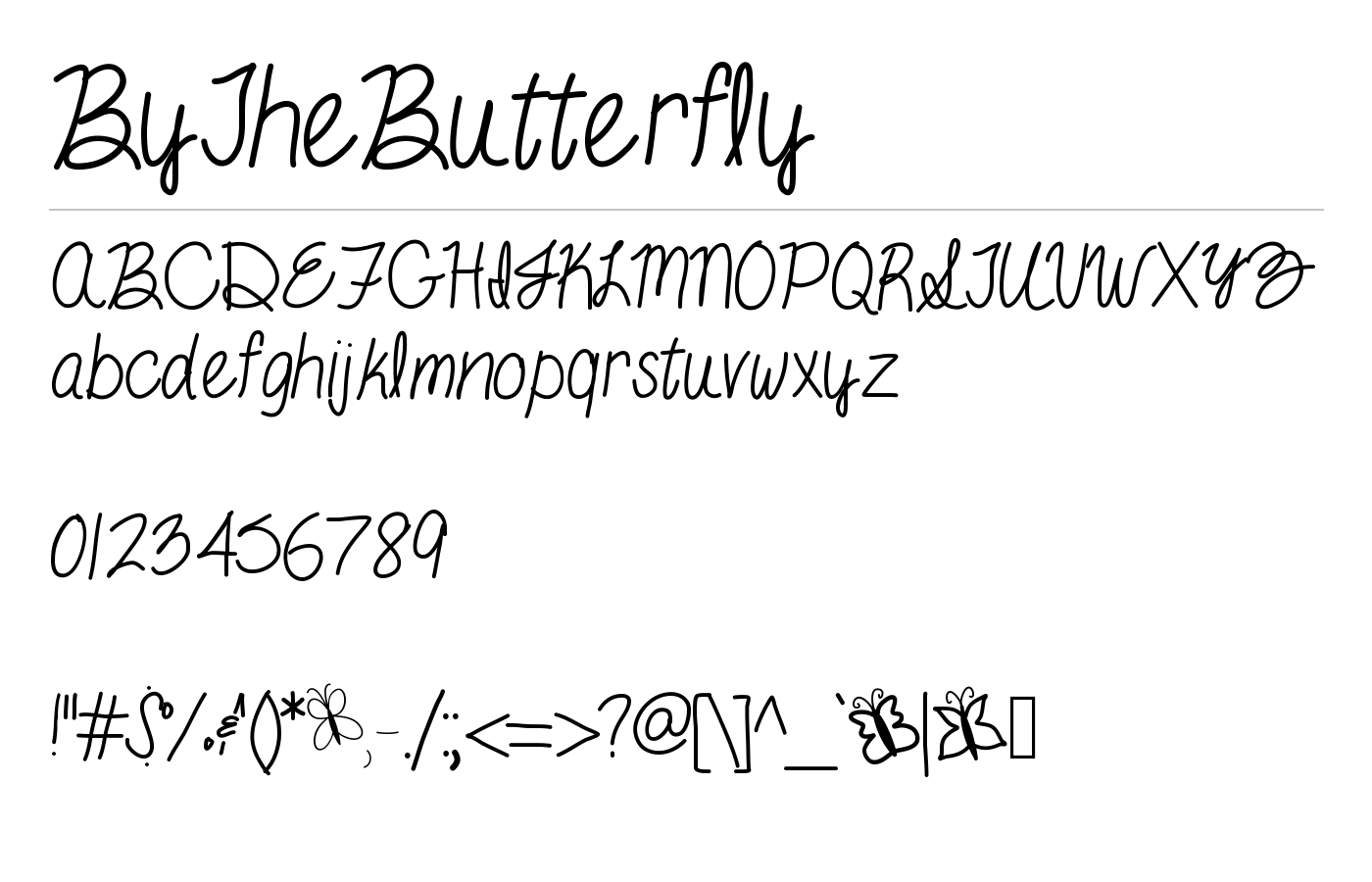
ByTheButterfly is a playful and whimsical handwritten script font with a light weight and tall, narrow letterforms that create an airy, casual feel. Its smooth, flowing strokes and unique butterfly-themed decorative elements give it a friendly and artistic personality, making it perfect for creative projects, invitations, and branding that seeks a personal, charming touch. This font works well for headlines and informal design contexts where a touch of individuality and warmth is desired.
ByTheButterfly Font
About ByTheButterfly Font